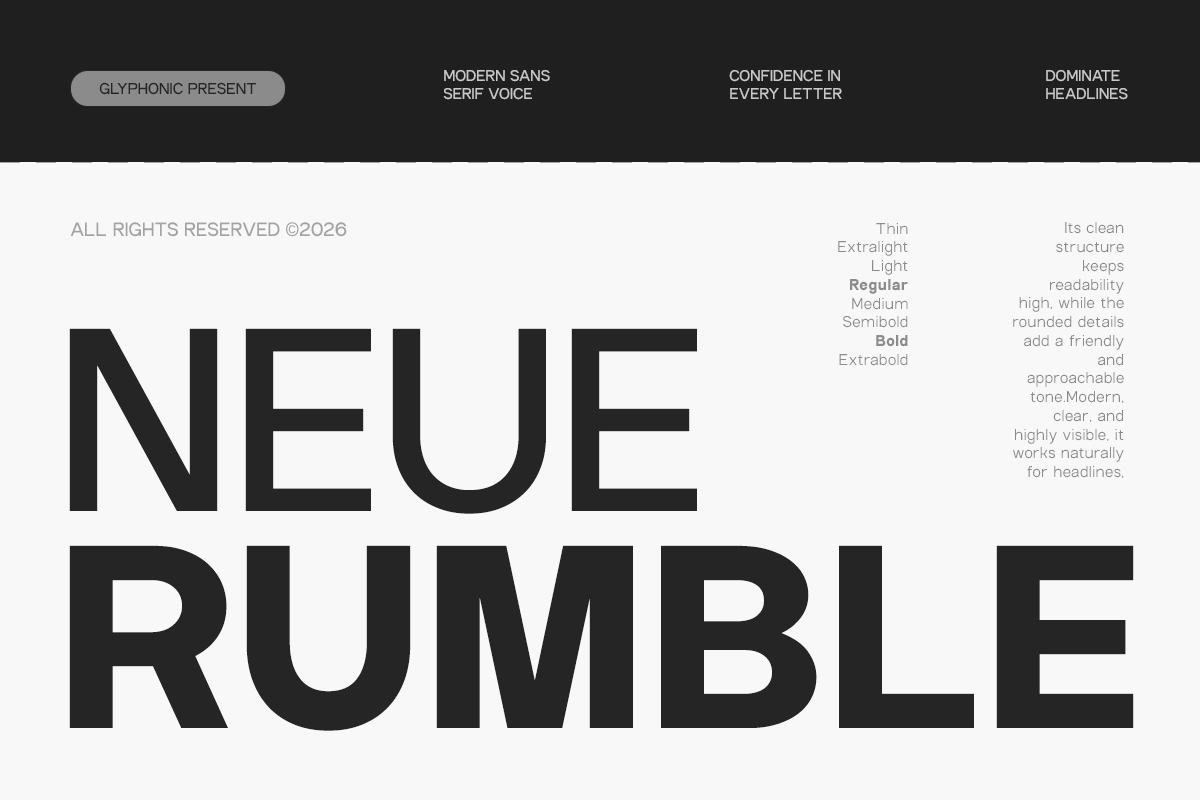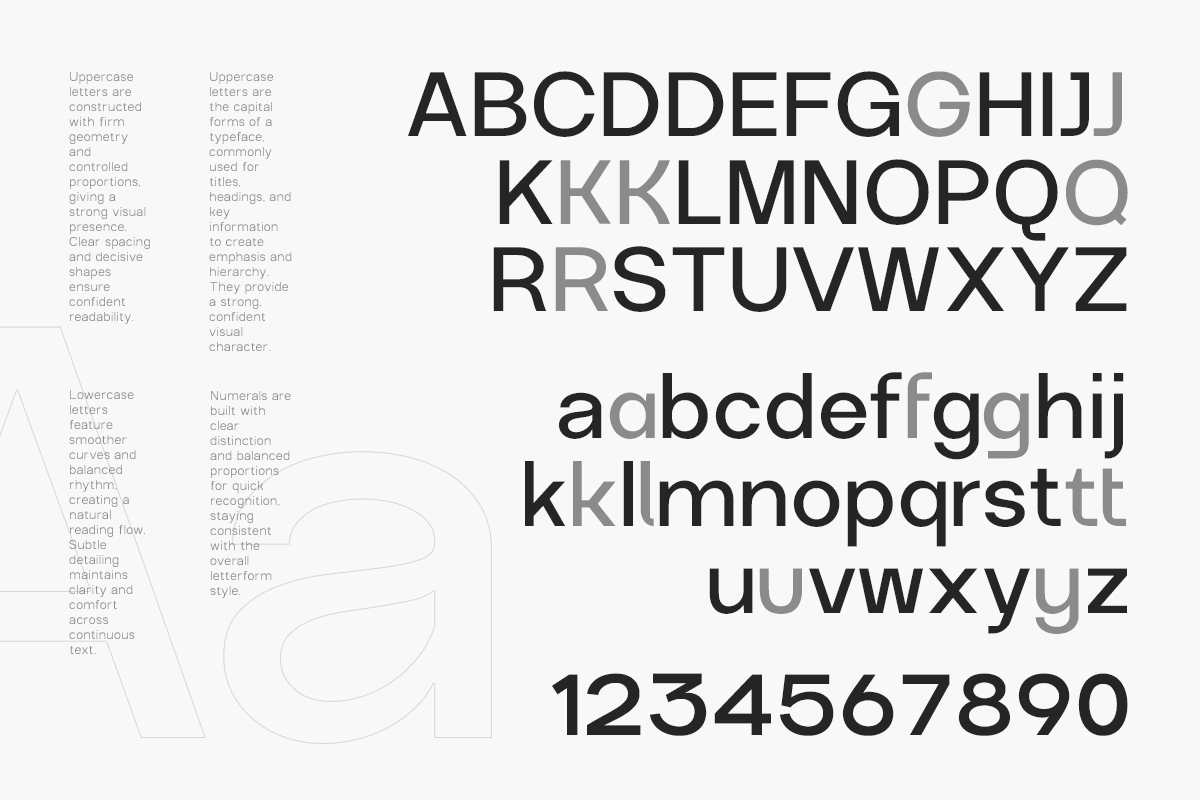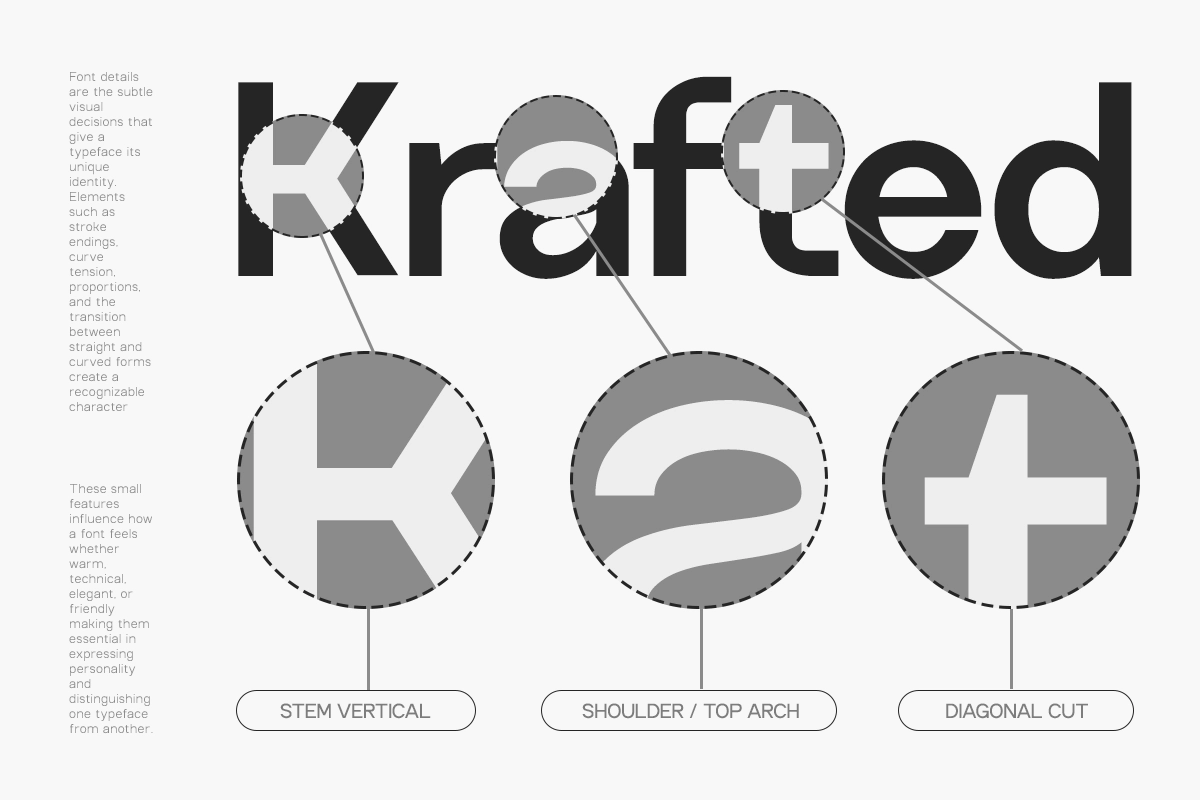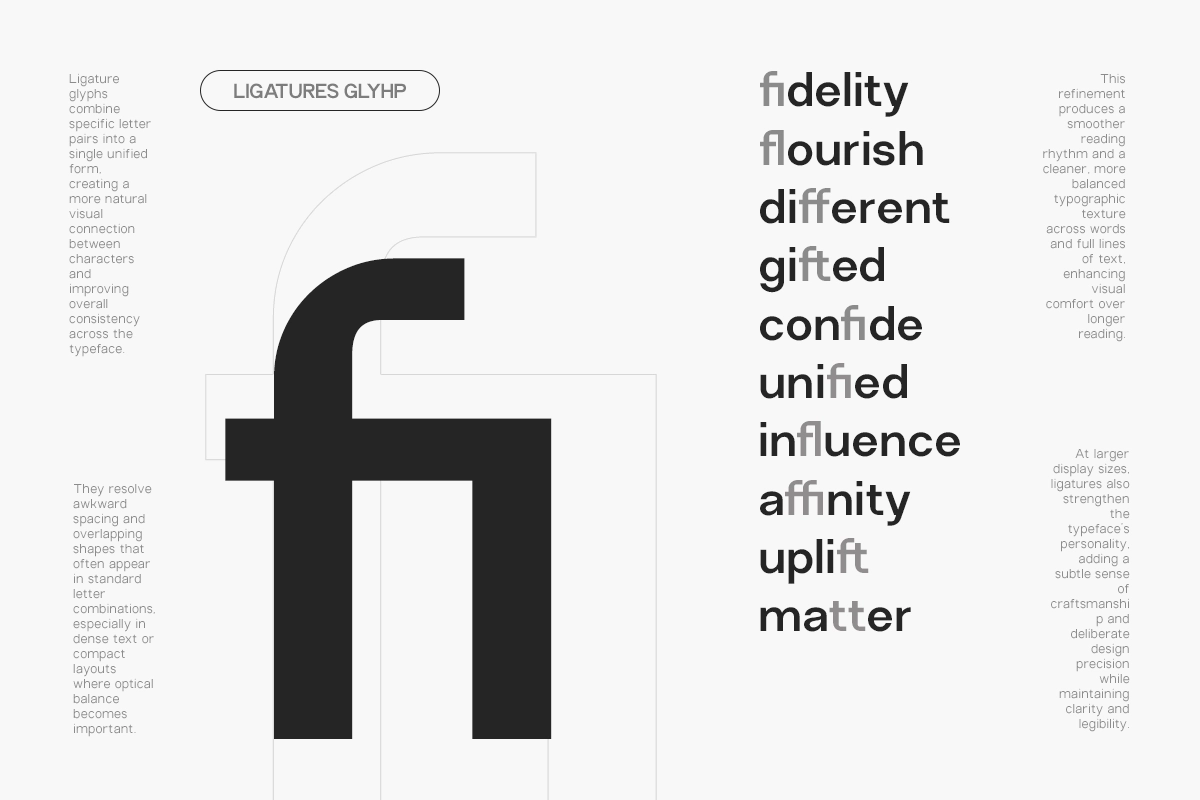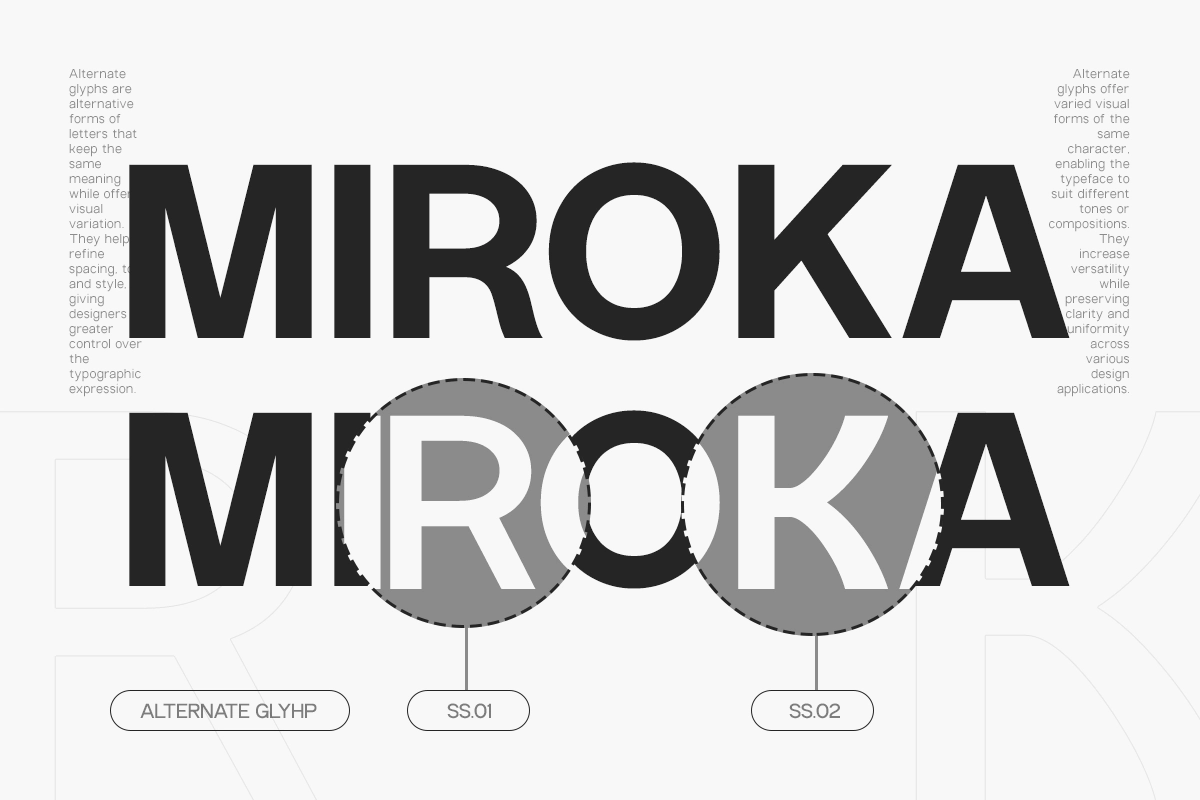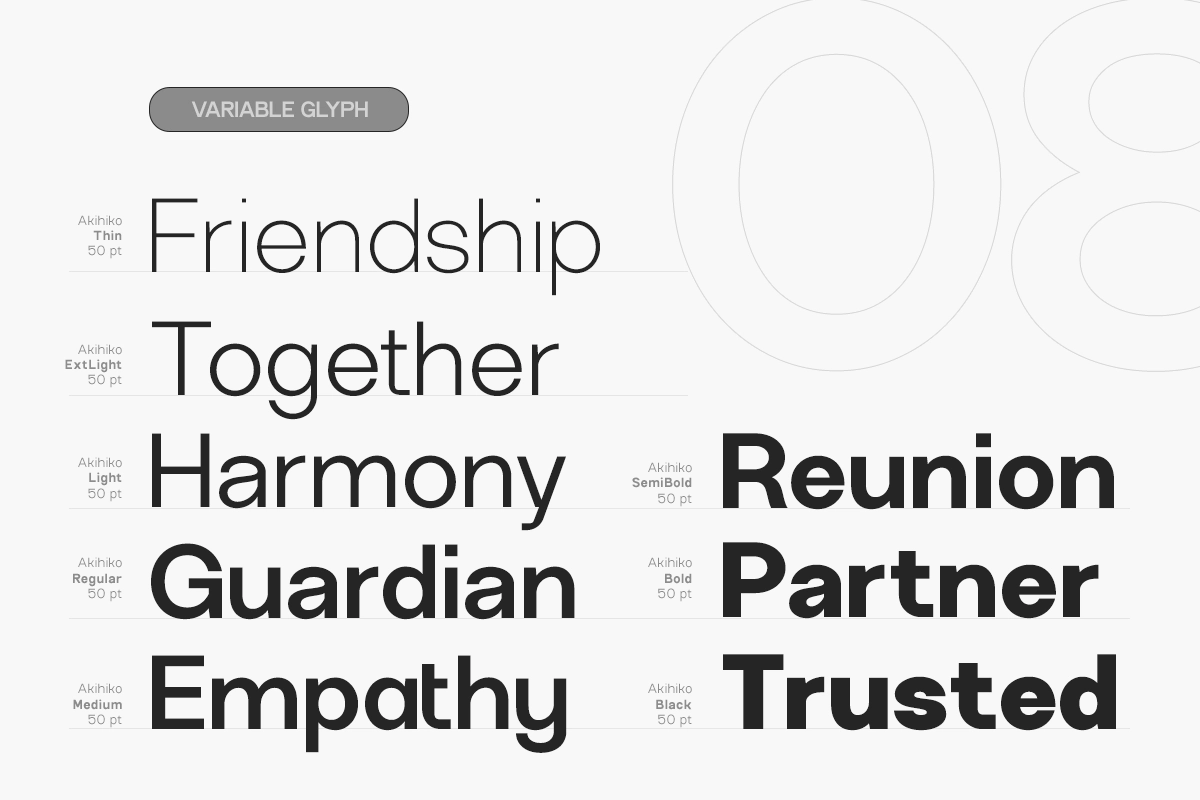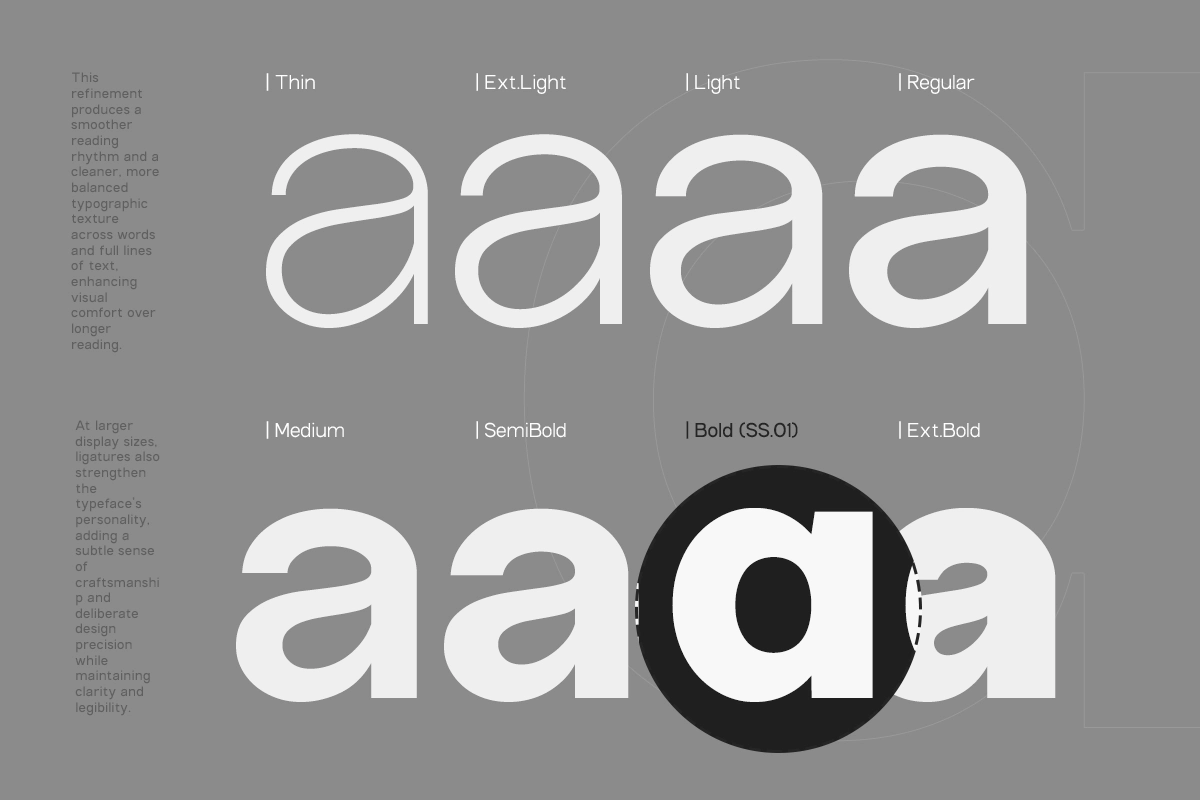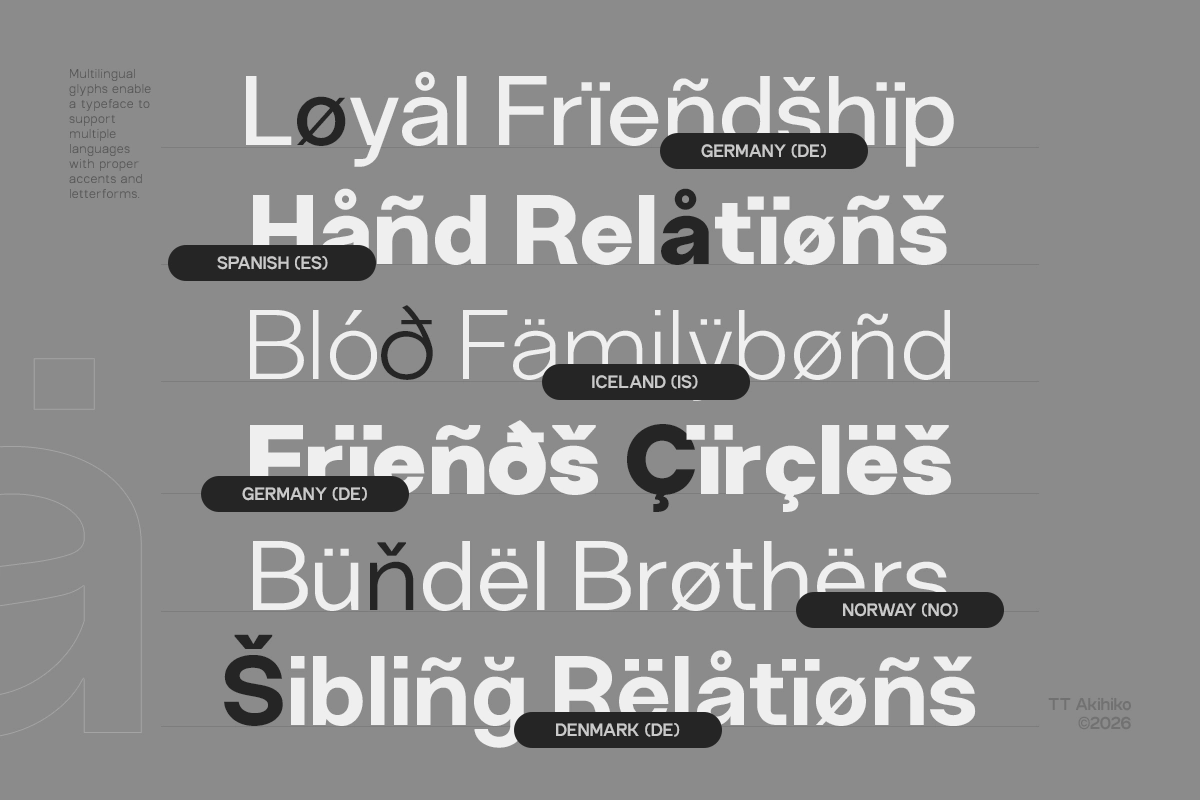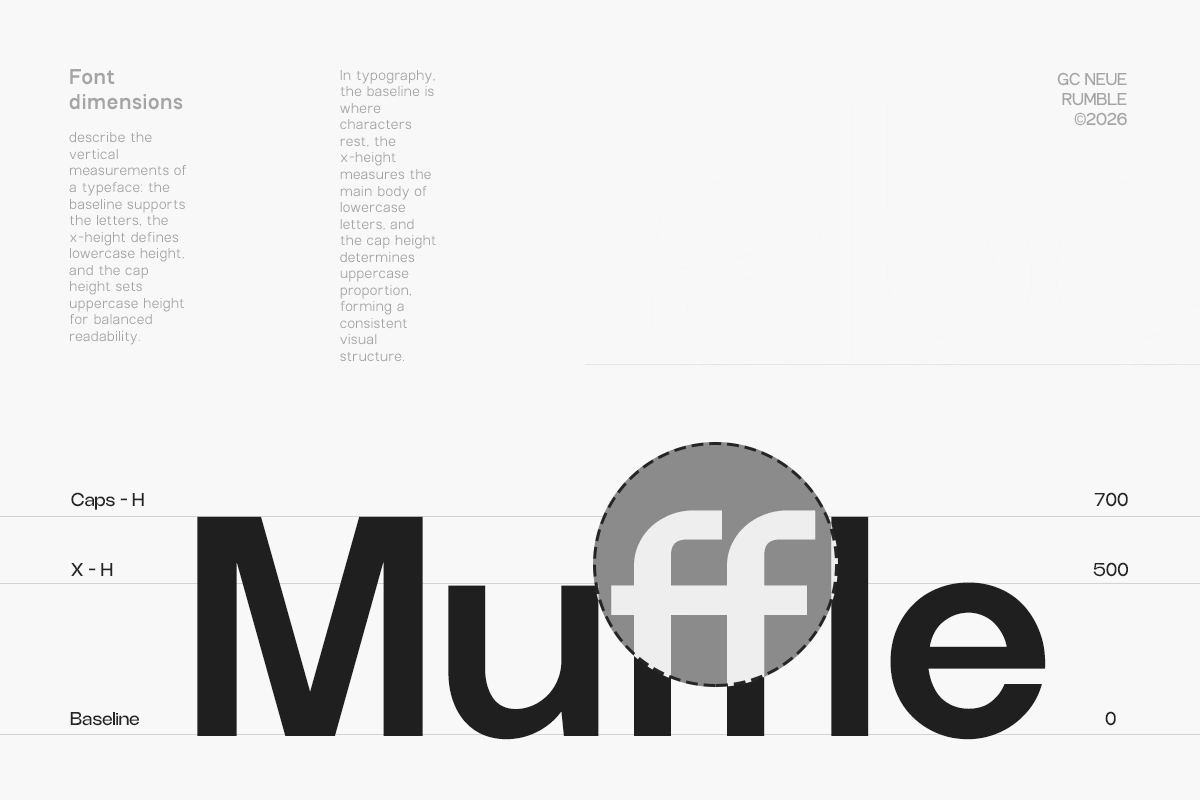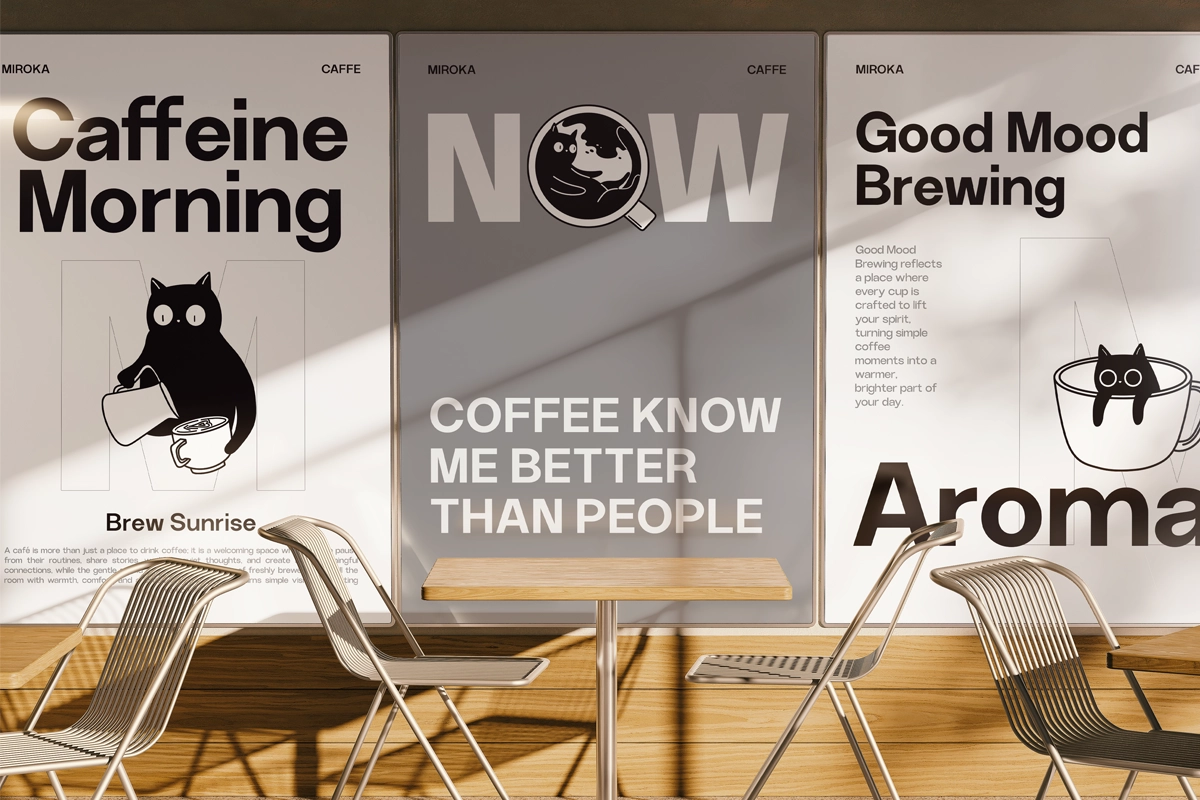
GC Neue Rumble - Modern Elegant Sans Font
GC Neue Rumble – Modern Elegant Sans Font is a contemporary sans serif typeface that combines refined elegance with modern clarity. Built with balanced proportions and clean geometry, it delivers a sophisticated and polished look, making it ideal for branding, editorial layouts, and premium design projects.
With smooth curves and subtle detailing, this typeface performs beautifully across both digital and print media. As a variable font, it offers flexible weight control, allowing designers to create precise typographic hierarchies while maintaining a cohesive and elegant visual identity.